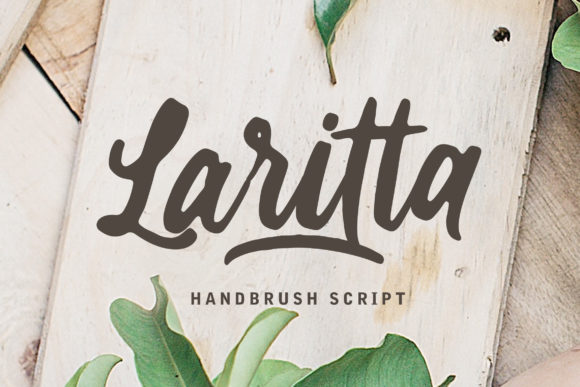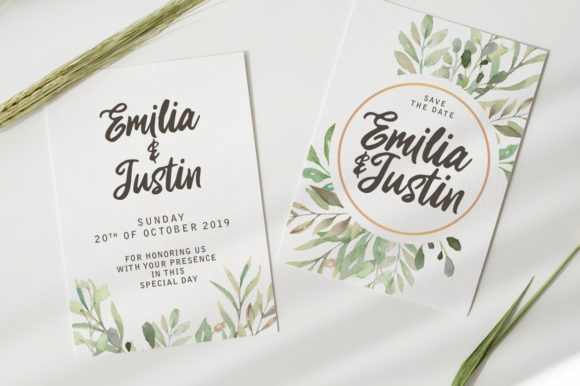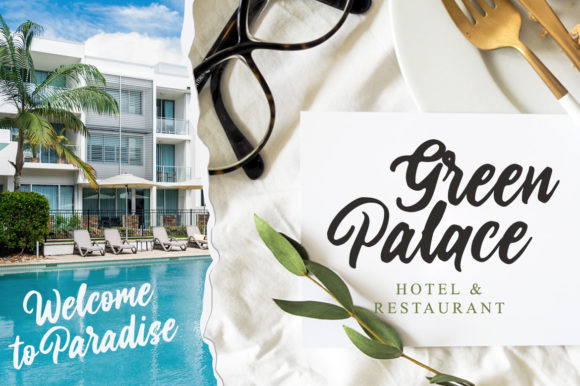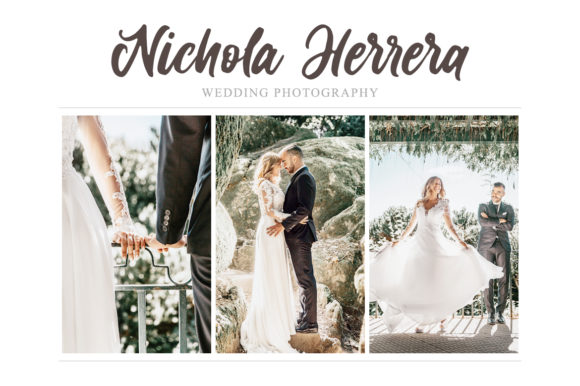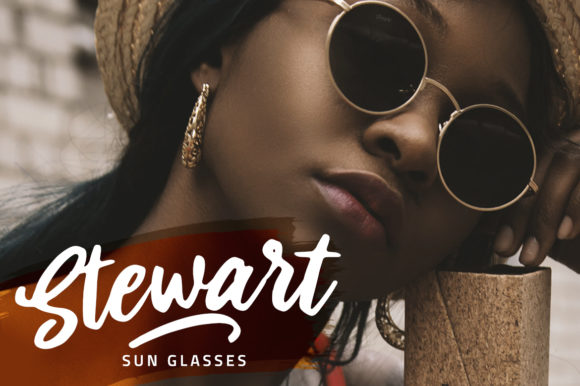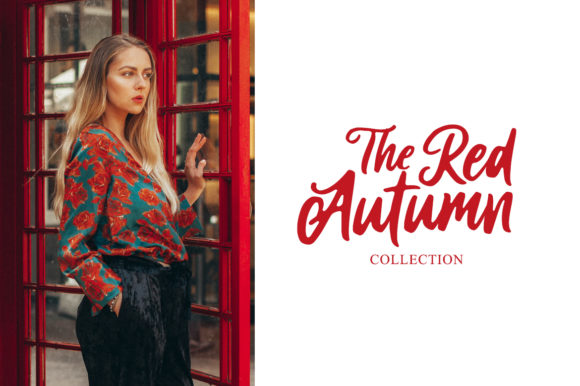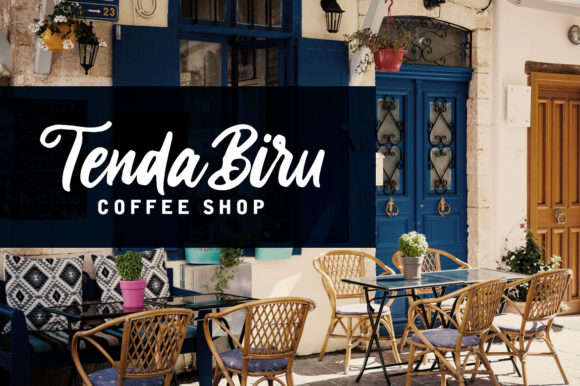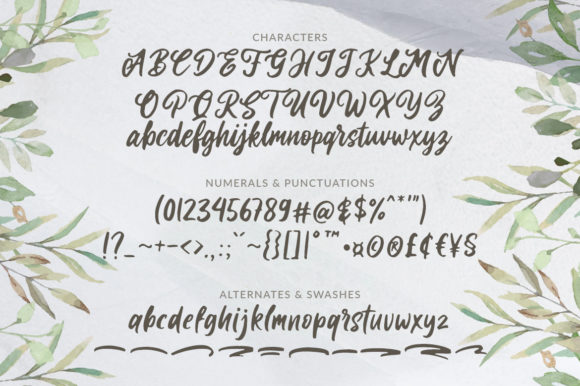
Laritta Font
About Laritta Font
Laritta fuses elegance and authenticity into one truly beautiful and original crafting font. It will easily turn any design project into a true masterpiece.